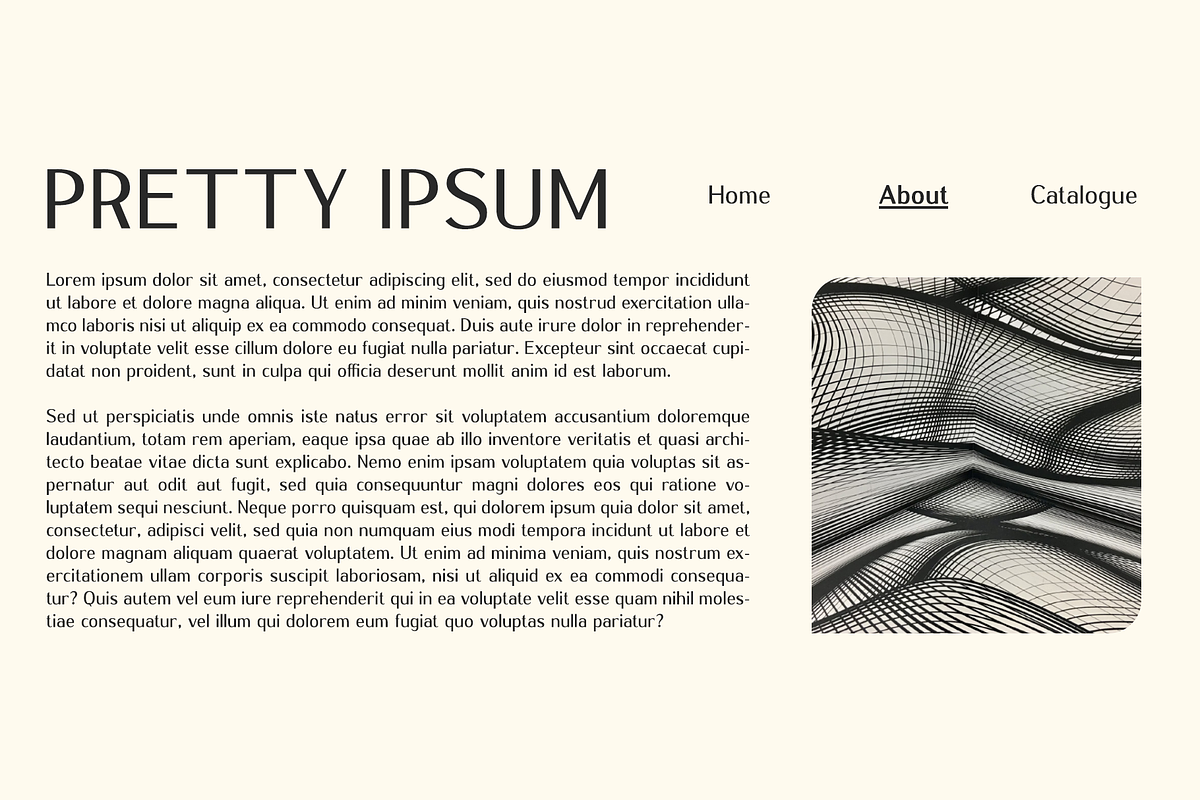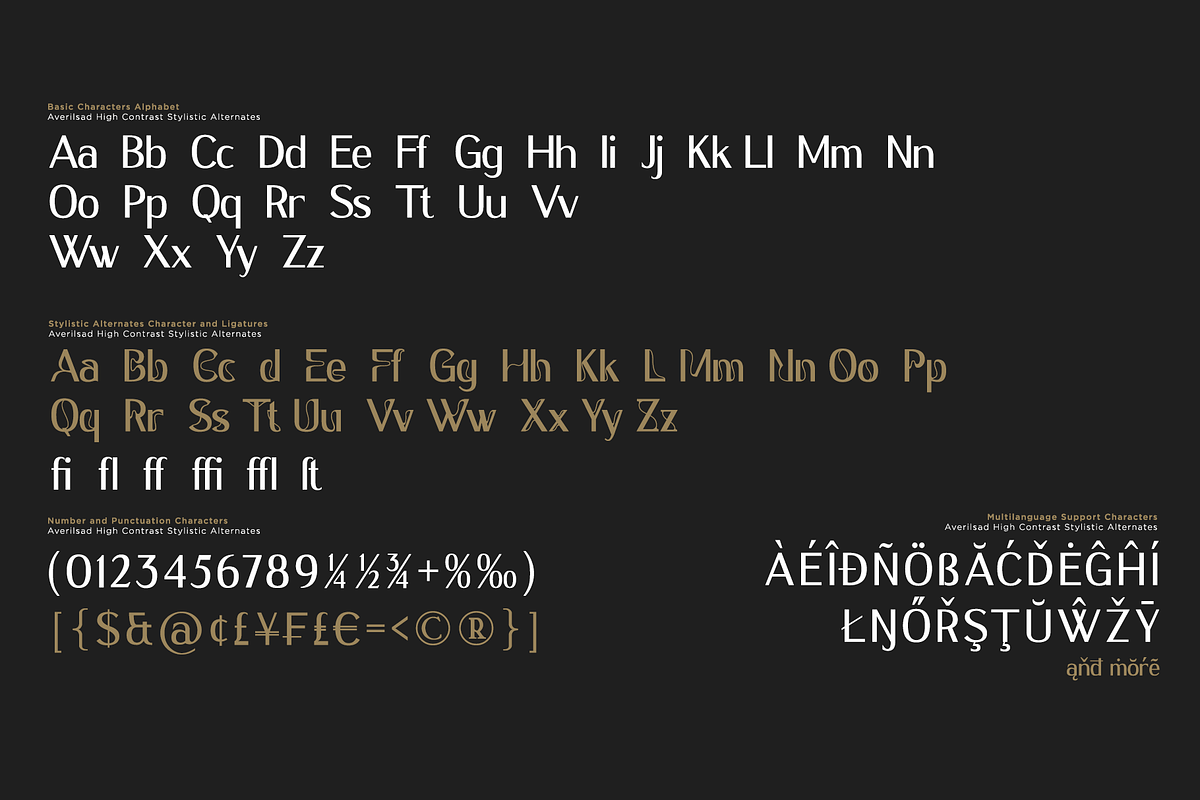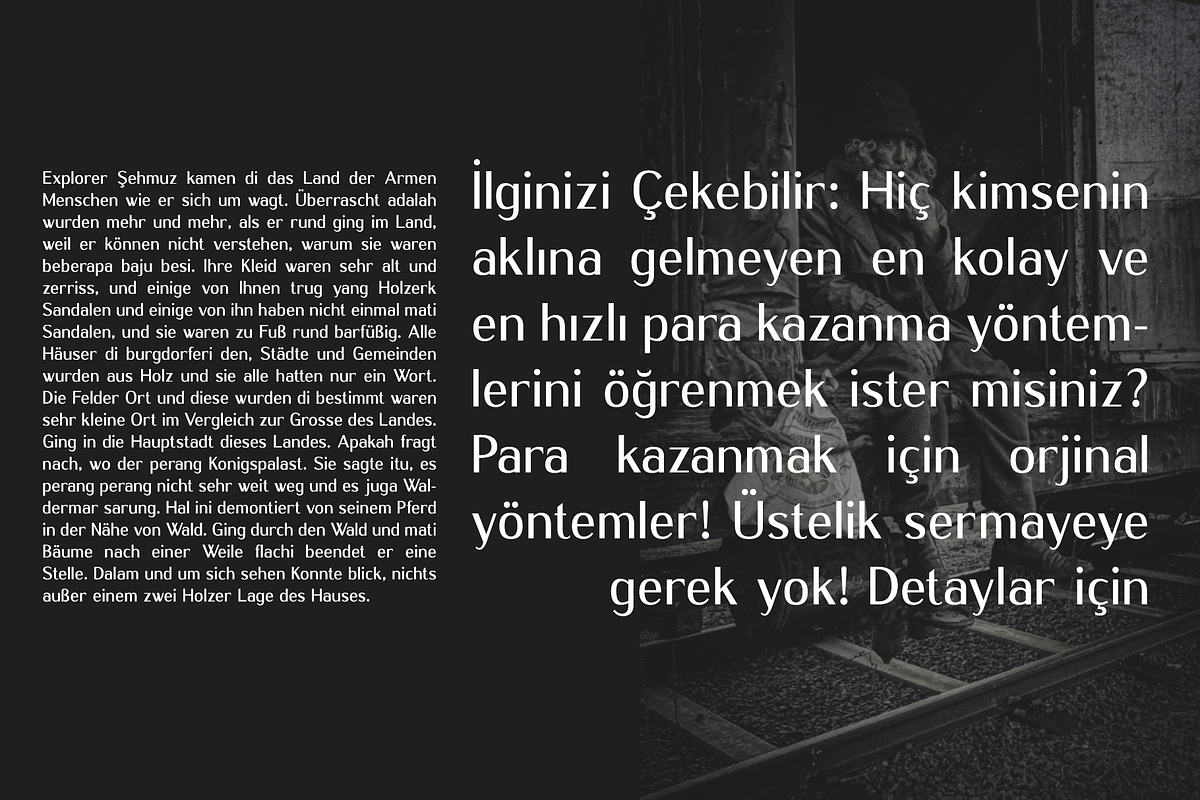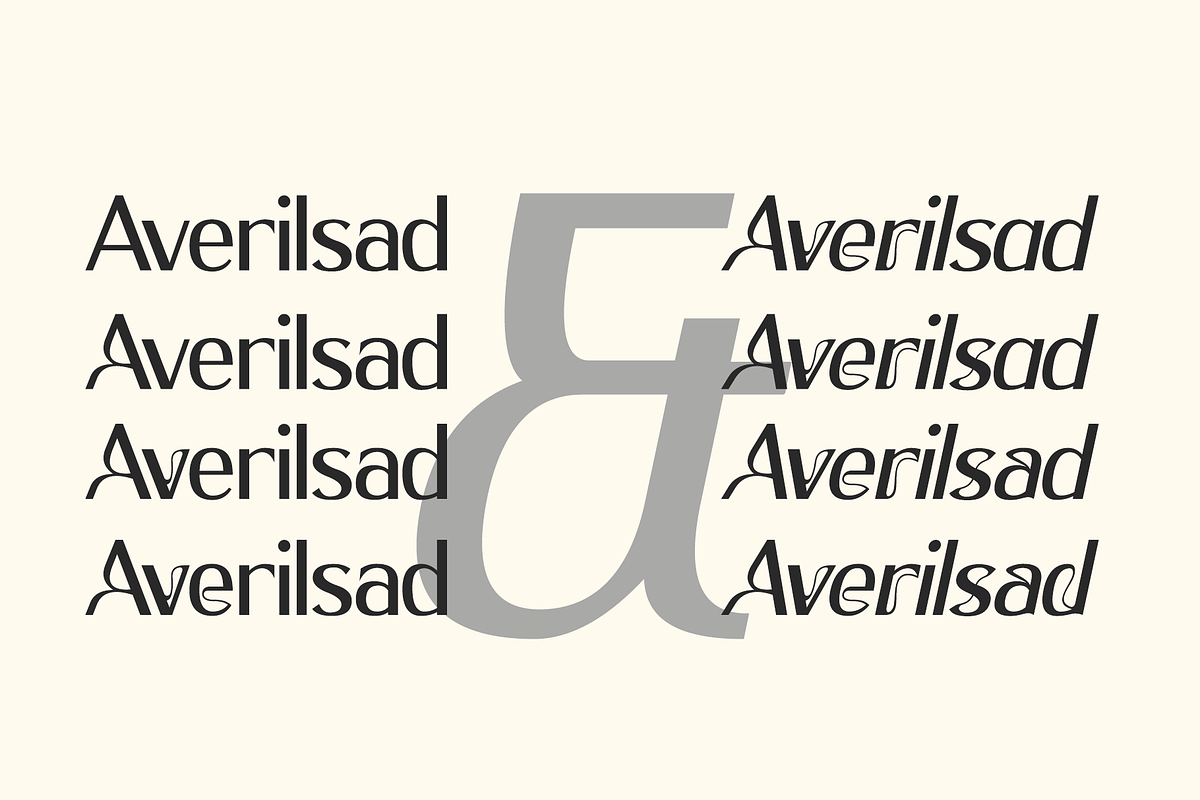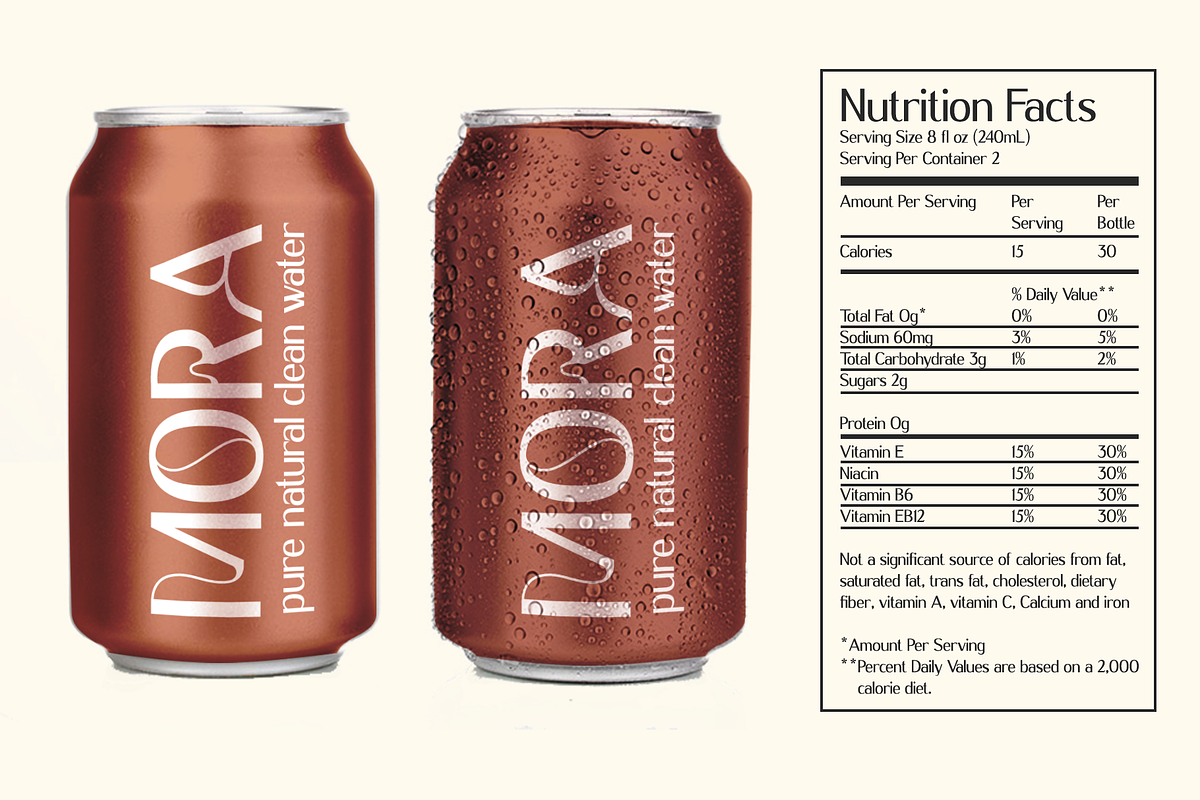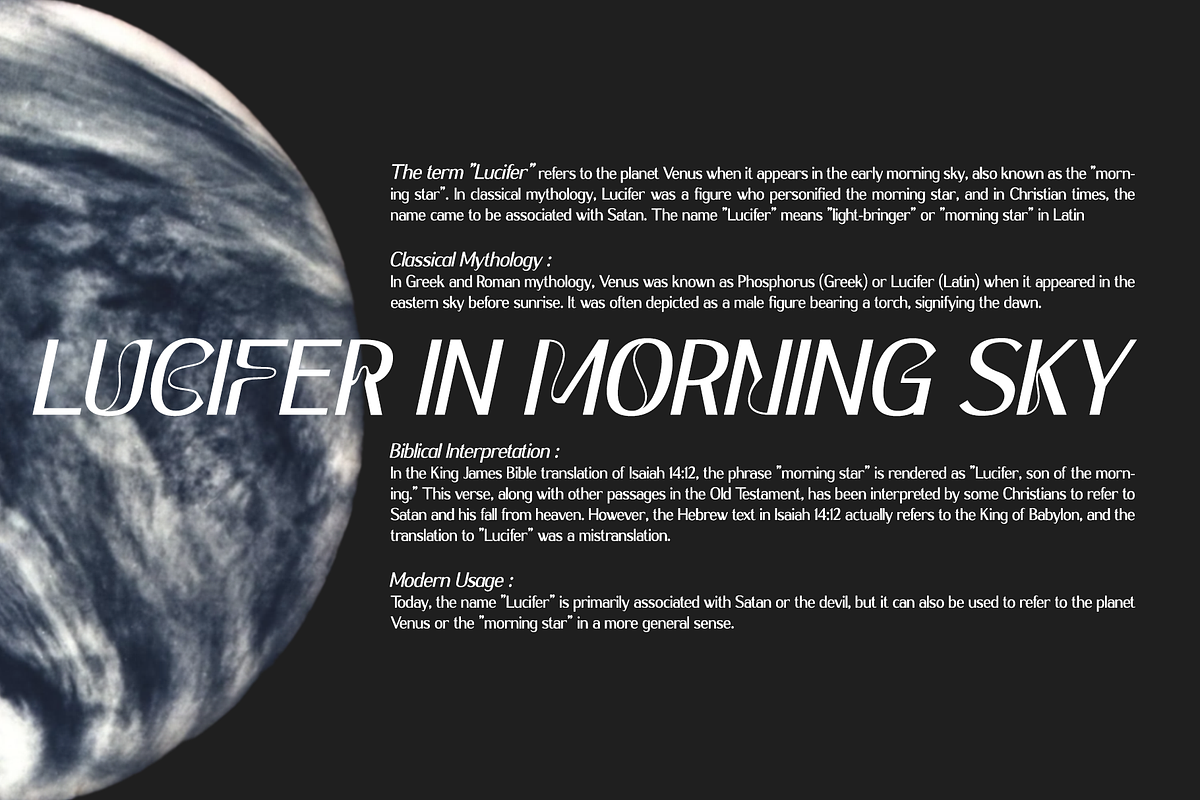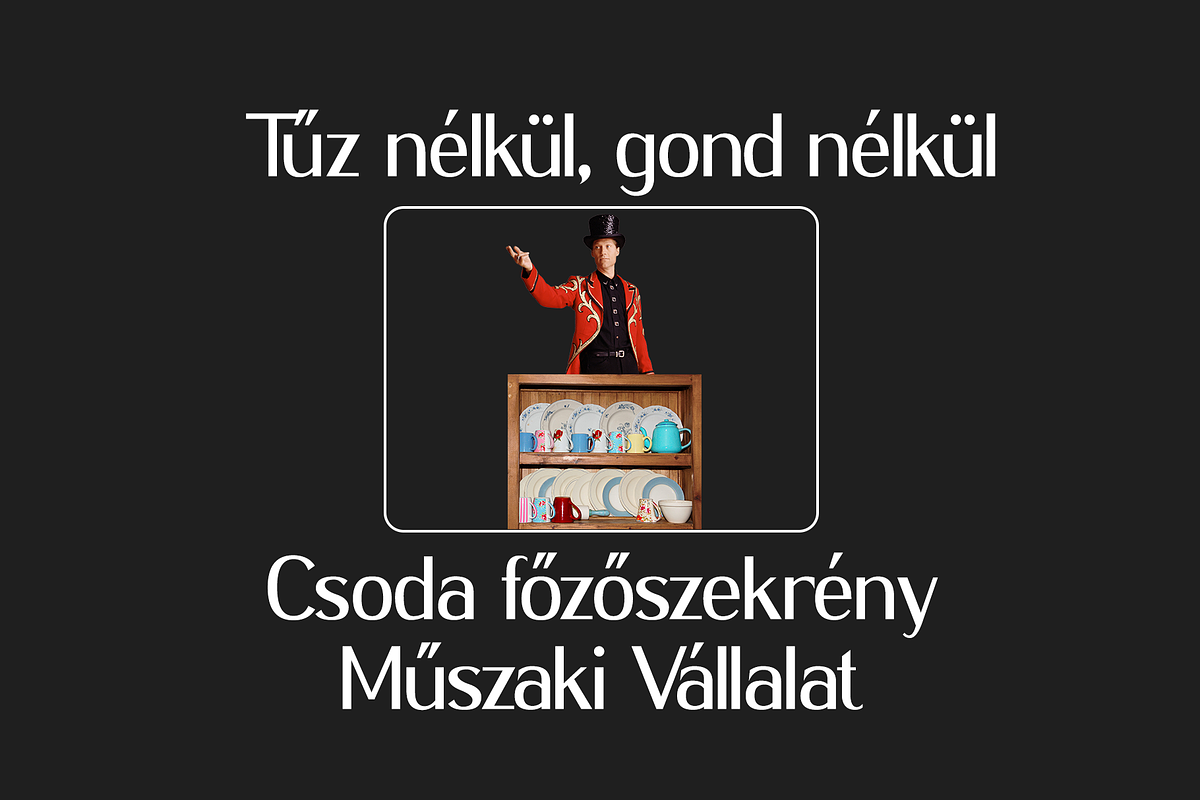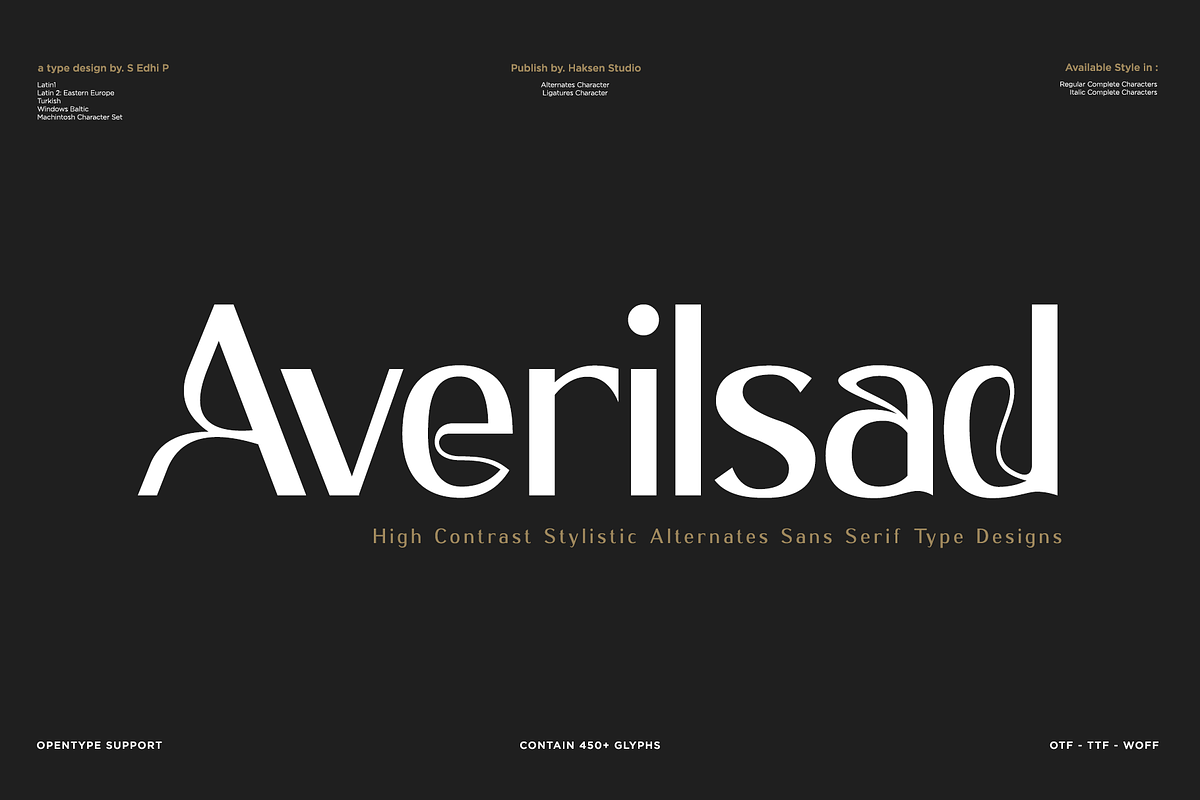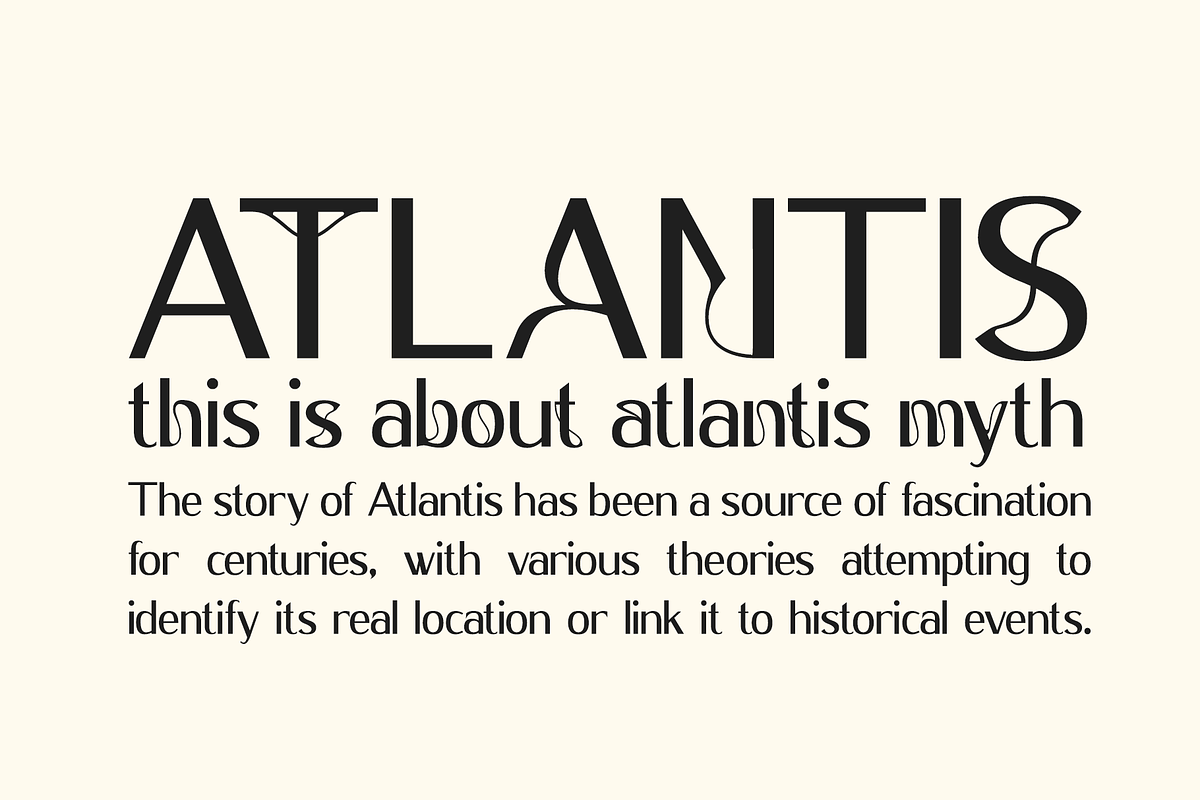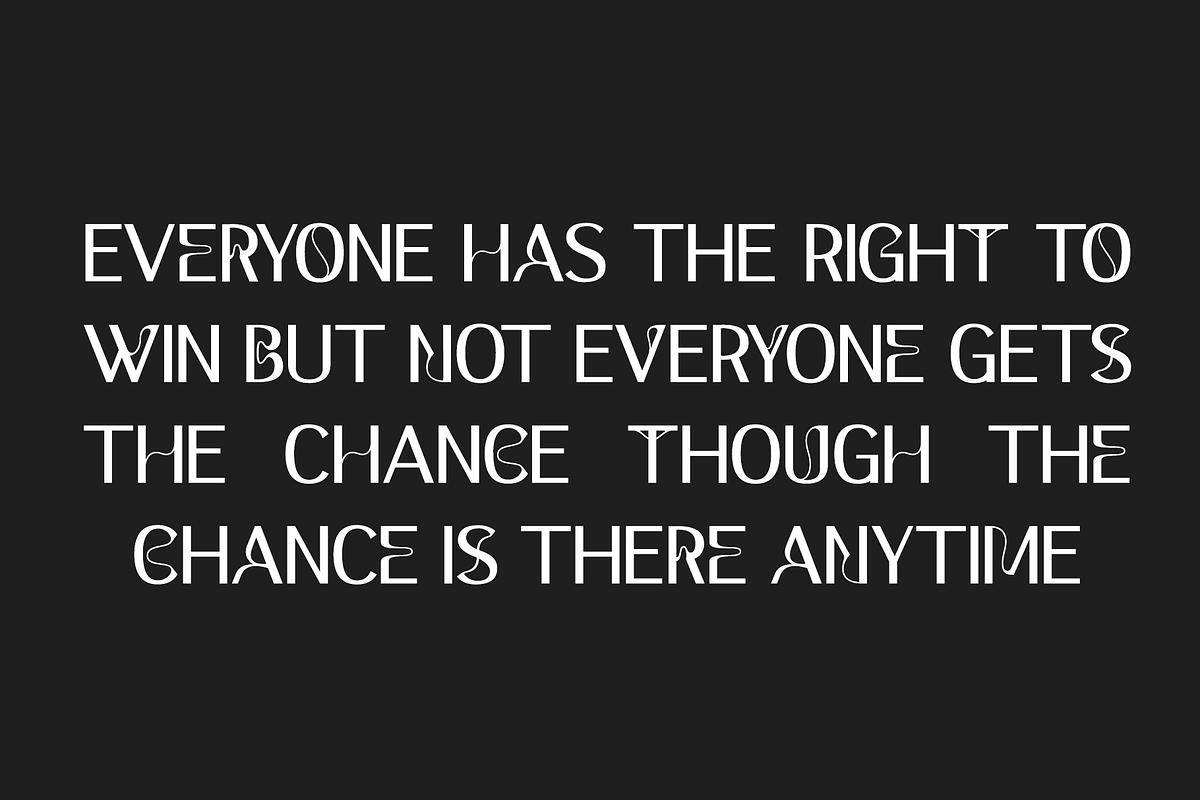
Averilsad
Averilsad is a sleek and versatile sans serif font designed to elevate your branding with elegance and modern simplicity. With clean lines and balanced proportions, Averilsad brings a contemporary feel that works beautifully across logos, packaging, editorials, websites, and more.
This font comes with a wide range of stylistic alternates and carefully crafted ligatures, giving you the creative freedom to personalize every detail of your design. Whether you’re building a luxury brand, minimalist identity, or a bold statement piece, Averilsad adapts seamlessly to your vision.
- Standar character A-Z and a-z
- Stylistic Alternates Font and Ligatures
- Multilinggual Character support